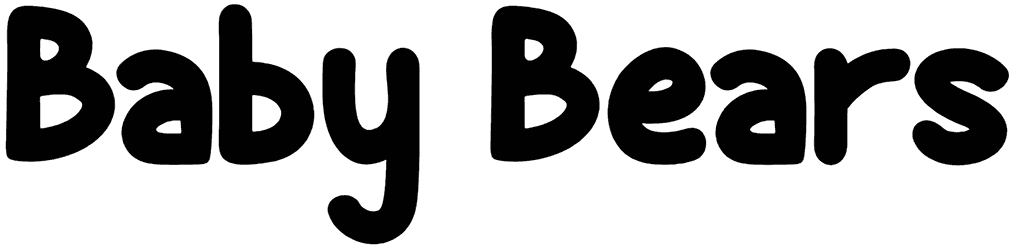
Baby Bears Font
Baby Bears is a playful and fancy baby font that adds a touch of whimsy to any design project. Its fun and lively style makes it an excellent choice for children’s books, posters, and other designs that require a touch of playfulness.